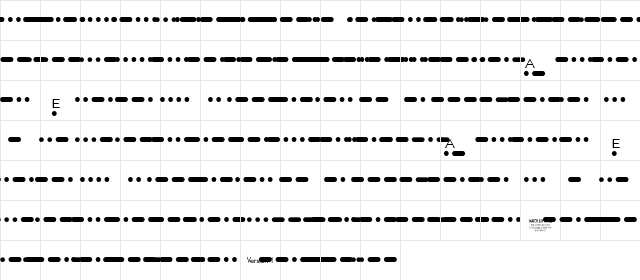
Match Morse (Shareware) Regular Free Font
Match Morse (Shareware) Regular
Design Context for Match Morse (Shareware)
Match Morse (Shareware) is a composed and adaptable typeface that performs quietly and consistently across a wide range of design contexts.